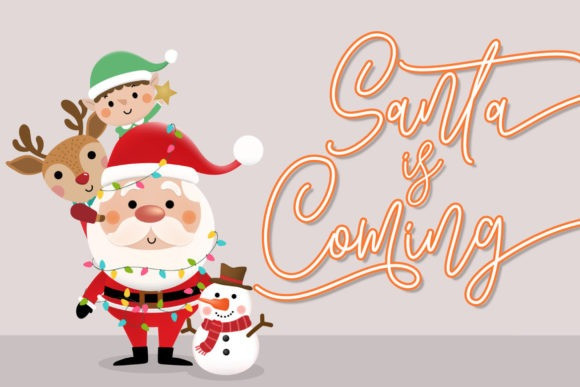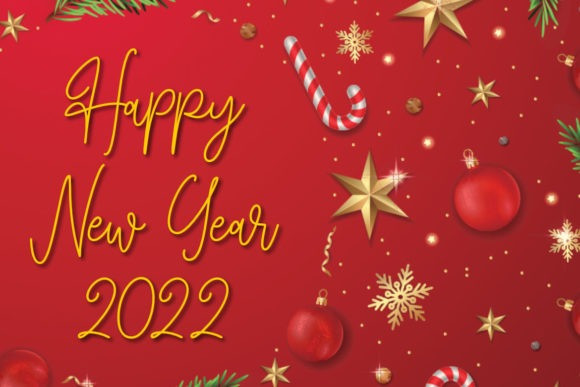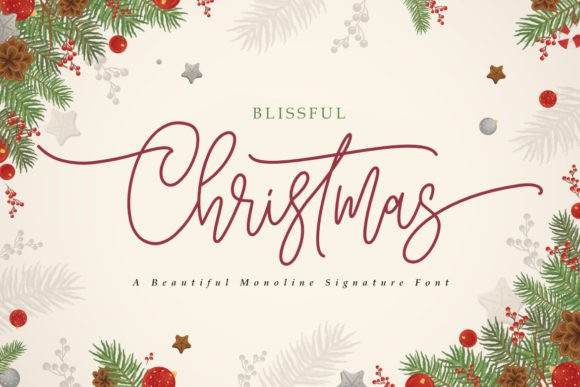
Blissful Christmas Font
Blissful Christmas Script Font is a stylish and delicate script font. It has a clean, thin, and smooth vibe. It will be a hit for any design you want to add it to. You can use this beautiful monoline signature font on Christmas cards, invitations, quotes, clothing, magazines, branding, and so much more!